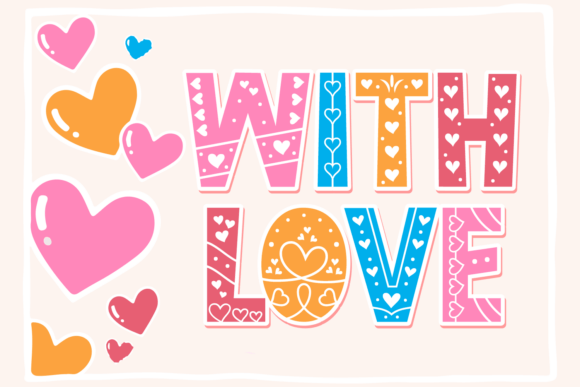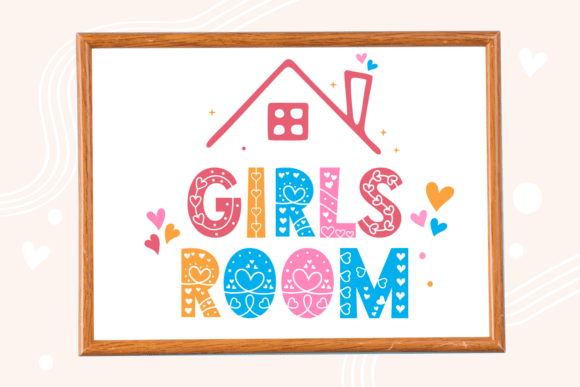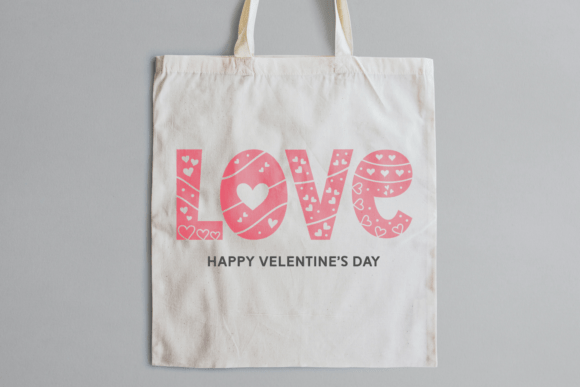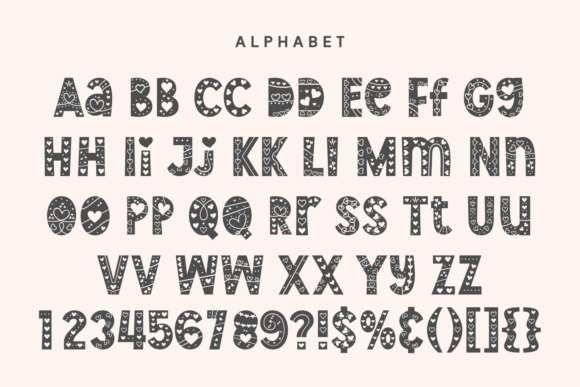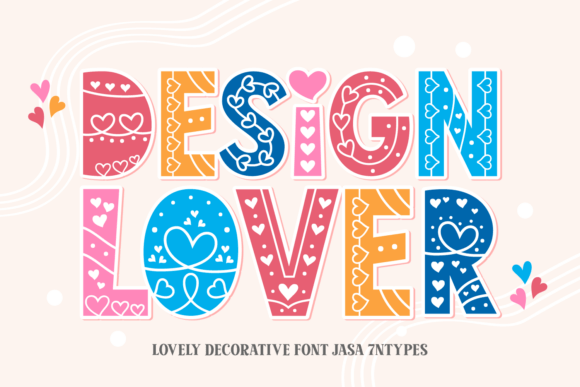
Introducing Design Lover Font: The Ultimate Decorative Font for Playful Visual Storytelling
Are you a designer, crafty enthusiast, or brand owner looking for a font that can add a touch of playfulness and romance to your visual projects? Look no further than the Design Lover Font, a high-impact and vibrant decorative font designed specifically for creative visual storytelling.
What Makes Design Lover Font So Special?
Design Lover Font is a one-of-a-kind decorative font that features massive, blocky letterforms that serve as containers for intricate romantic and geometric illustrations. Each character is carefully crafted with a heavy silhouette and a stable vertical axis, giving it a sturdy and balanced look. The font also boasts a white outline, which creates a layered, sticker-like effect that makes it pop against neutral backgrounds.
Perfect for Valentine’s Day Marketing and More
With its romantic and playful vibe, Design Lover Font is the perfect asset for Valentine’s Day marketing campaigns, youth-oriented brand identities, creative product packaging, and vibrant social media headers. The font’s unique illustrations, including various heart motifs, dotted patterns, and flowing line work, are sure to capture the attention of your audience and leave a lasting impression.
Key Features of Design Lover Font
- High-impact and vibrant design: Perfect for making a statement in your visual projects
- Massive, blocky letterforms: Serve as containers for intricate romantic and geometric illustrations
- Intricate illustrations: Include various heart motifs, dotted patterns, and flowing line work
- Heavy silhouette and stable vertical axis: Give the font a sturdy and balanced look
- White outline: Creates a layered, sticker-like effect that pops against neutral backgrounds
Use Design Lover Font for a Variety of Projects
Design Lover Font is a versatile font that can be used for a wide range of projects, including:
- Valentine’s Day marketing campaigns: Add a touch of romance and playfulness to your Valentine’s Day promotions
- Youth-oriented brand identities: Create a fun and vibrant brand image that appeals to young audiences
- Creative product packaging: Make your product stand out with unique and eye-catching packaging
- Vibrant social media headers: Add a pop of color and personality to your social media profiles
Why Choose Design Lover Font?
With so many fonts available, why choose Design Lover Font? Here are just a few reasons:
- Unique and eye-catching design: Stand out from the crowd with a font that’s truly one-of-a-kind
- High-quality illustrations: Intricate and detailed illustrations that add an extra layer of depth to your designs
- Easy to use: Simple and straightforward to incorporate into your projects
- Versatile: Suitable for a wide range of projects and applications
Get Ready to Fall in Love with Design Lover Font
If you’re looking for a font that can add a touch of playfulness, romance, and whimsy to your visual projects, look no further than Design Lover Font. With its unique illustrations, high-impact design, and versatility, this font is sure to become a favorite in your design toolkit. So why wait? Get ready to fall in love with Design Lover Font and take your designs to the next level!